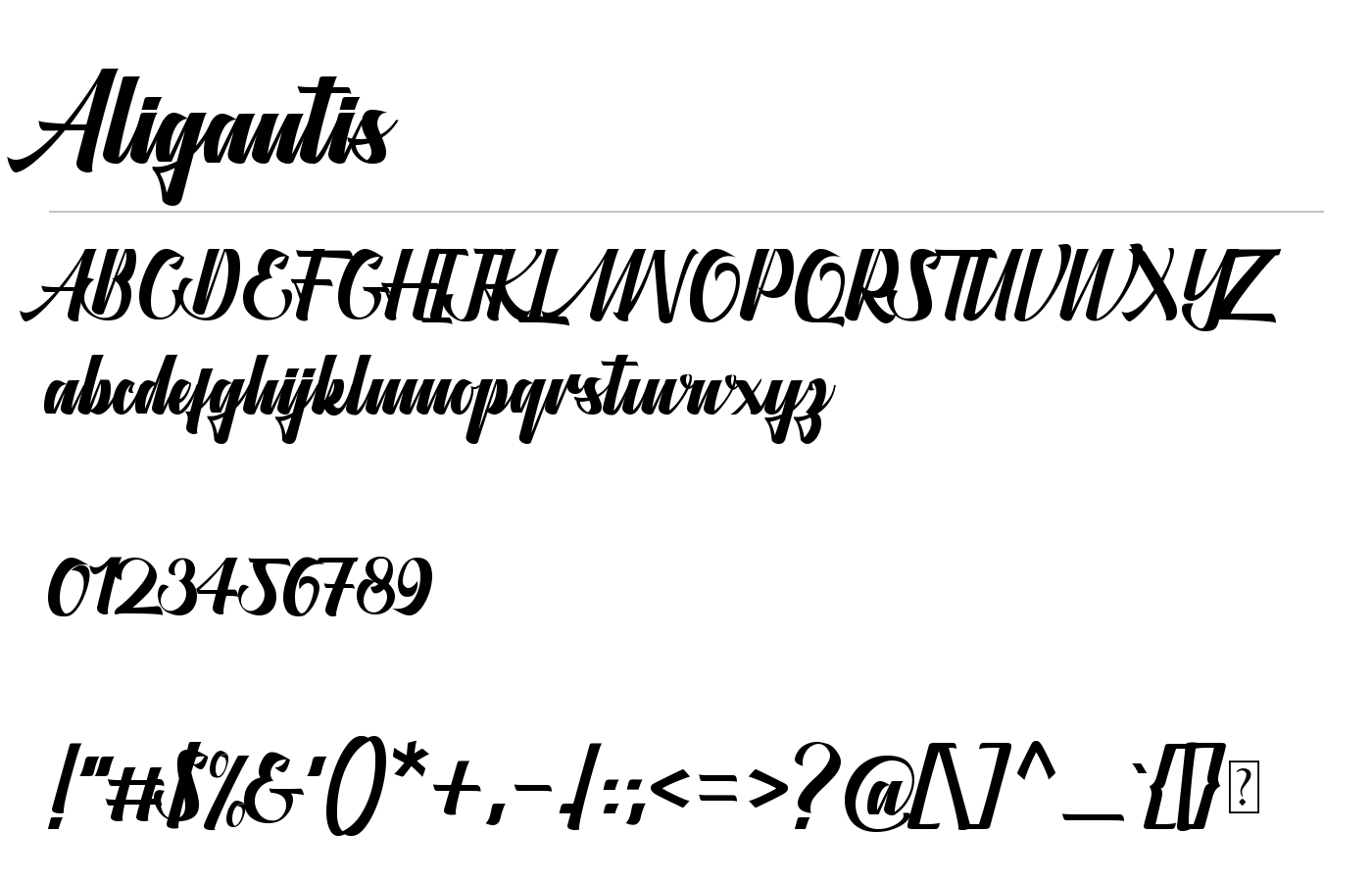
Aligantis is a bold and elegant script font featuring distinctive, flowing letterforms with sharp, dynamic strokes that convey energy and sophistication. Its high contrast and slightly condensed style make it perfect for eye-catching headlines, logos, and branding that seek a stylish, modern flair with a touch of classic calligraphy. This font shines in fashion, luxury, and creative industries where personality and impact are key.
Aligantis Font
About Aligantis Font
| Font family | Aligantis Font |
| Designer | Muh. Aswar |